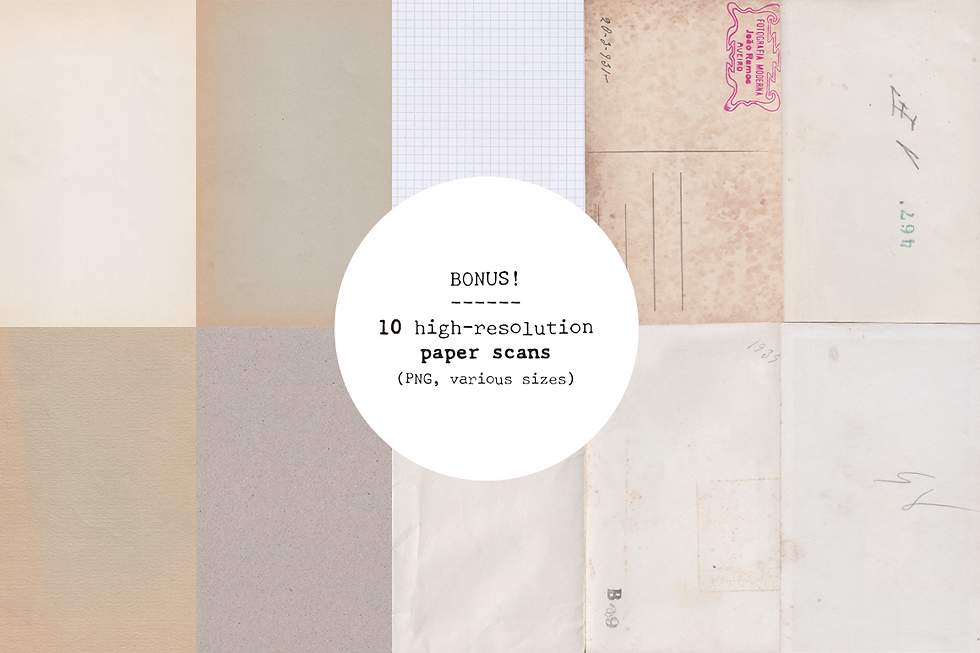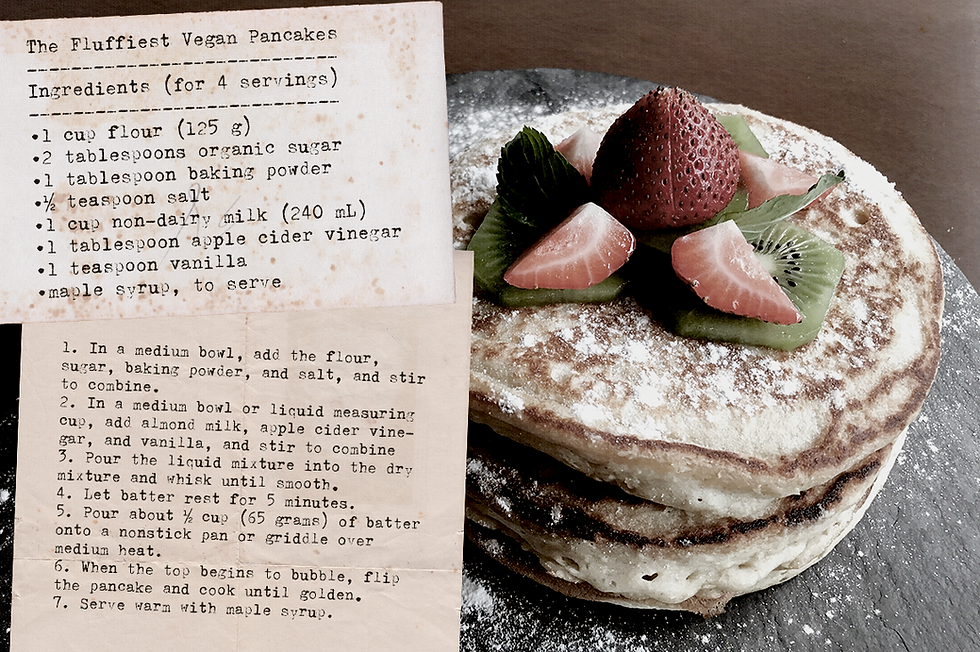
This is a bundle of all the typewriter fonts I have created since releasing my Ultimate Typewriter Font Bundle Vol.I
The fonts in this bundle include Open Type features, such as contextual alternates and ligatures, that make them super fun to use and realistic. This set also includes all the extras included in the individual products, such as: vintage paper scans, vintage stamps, vintage science graphics, and hand-painted graphic elements. All Photoshop brushes have corresponding transparent PNGs.
Use this set in any designs that needs a vintage touch. Use it in long or short texts, in digital collages, branding and packaging, social media posts, logotypes, etc.